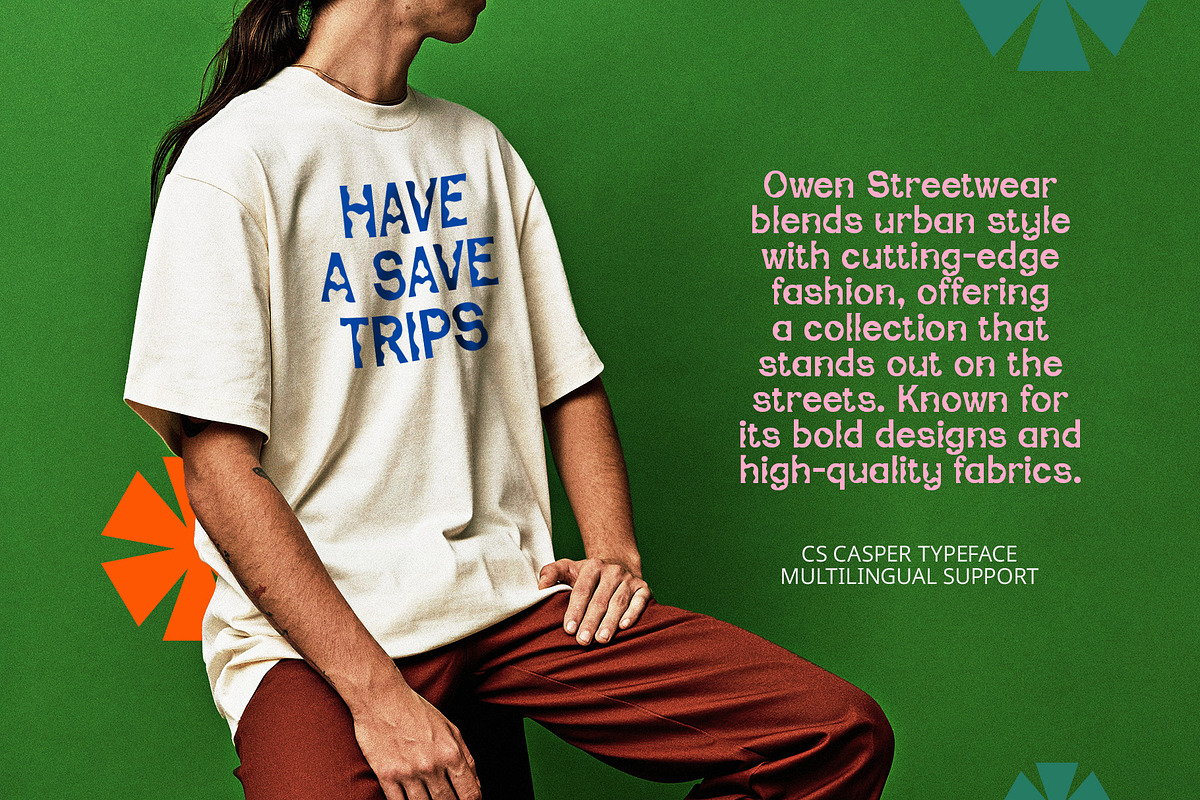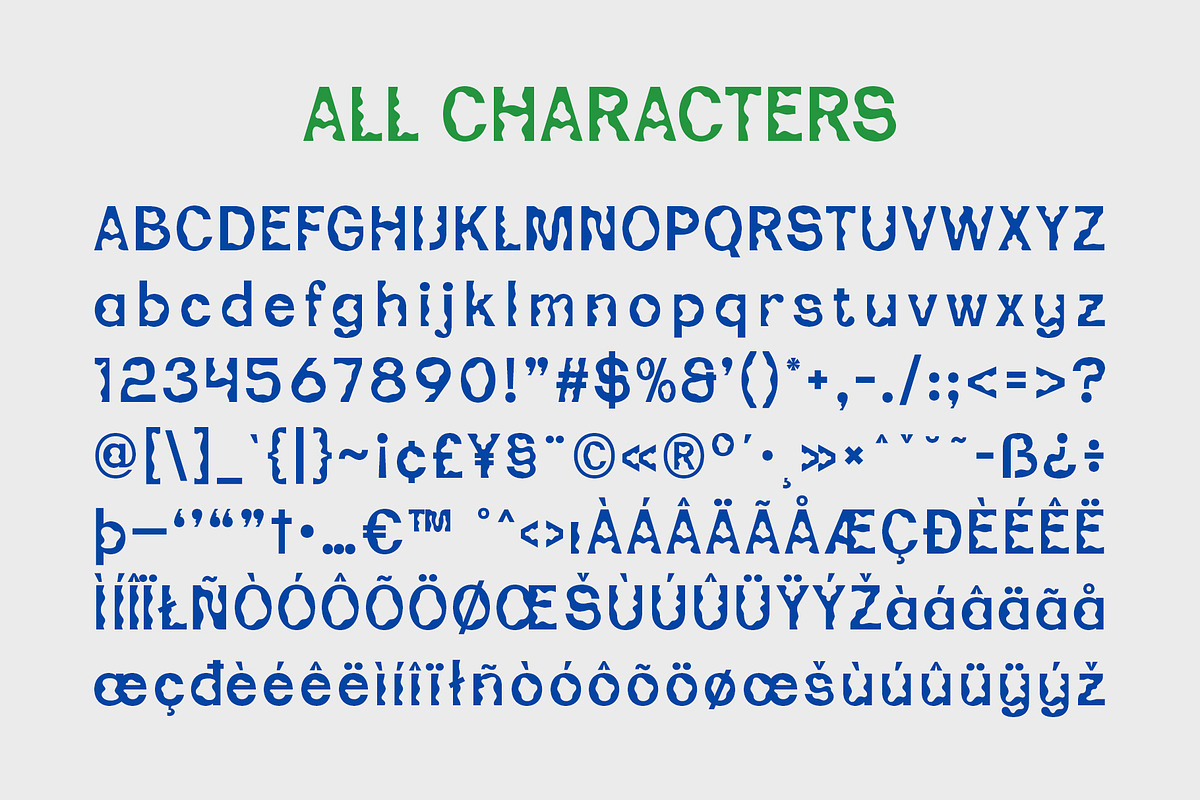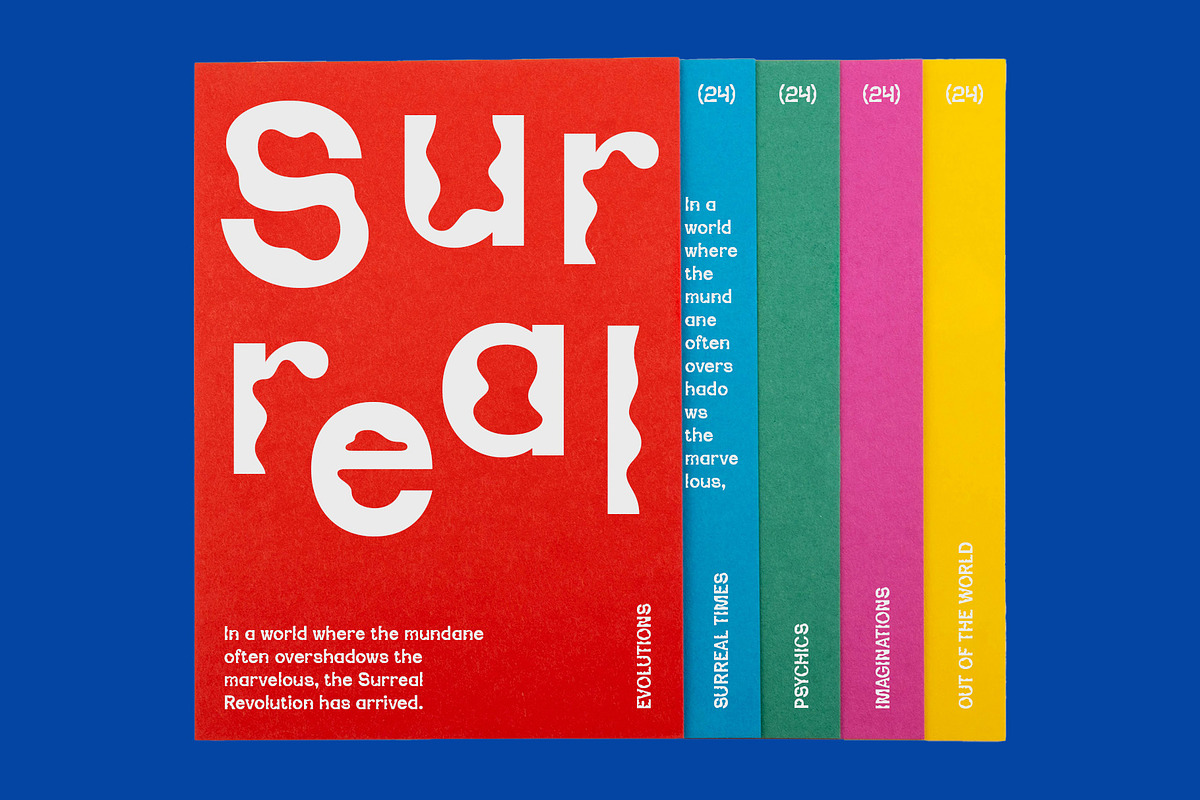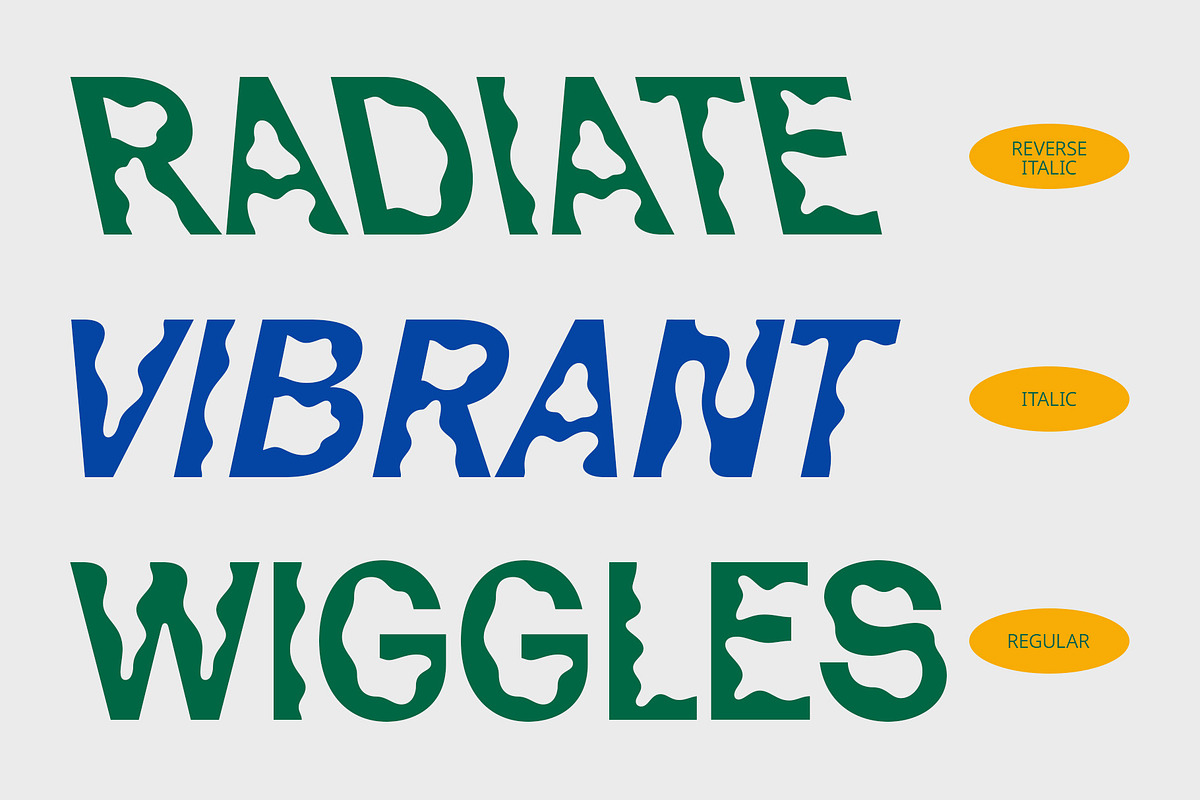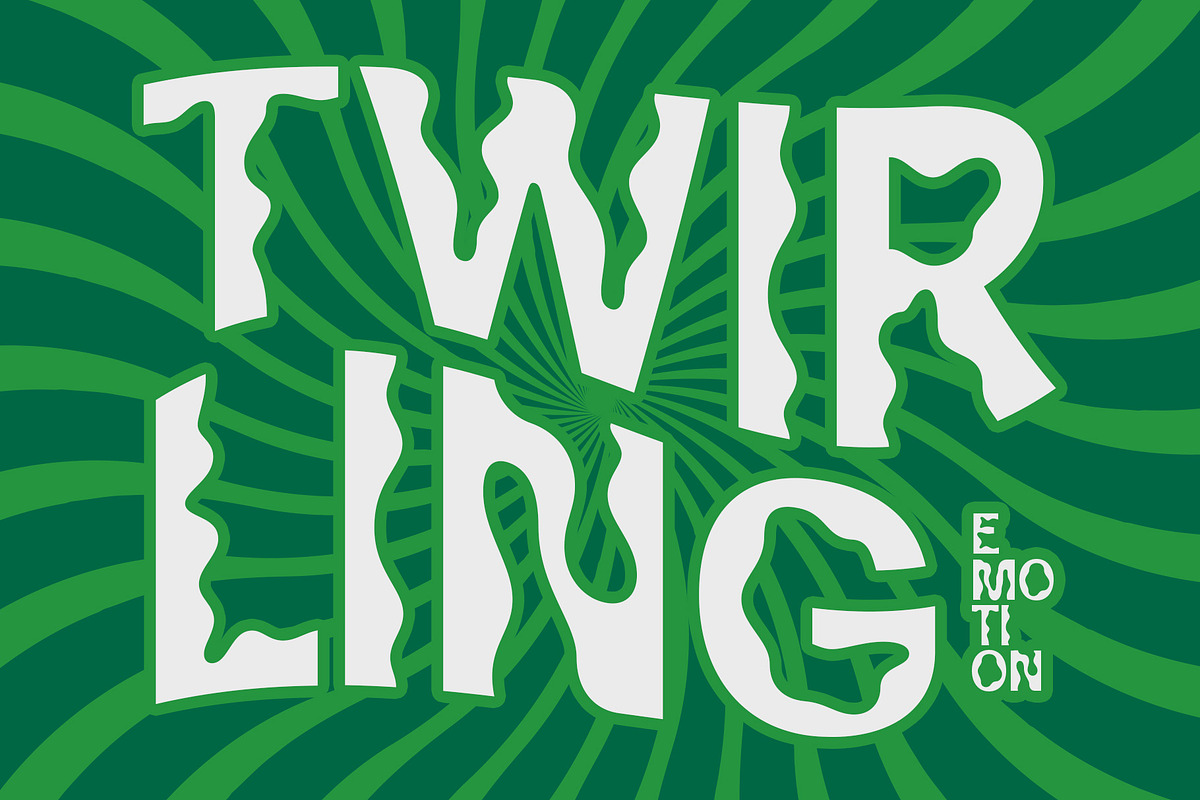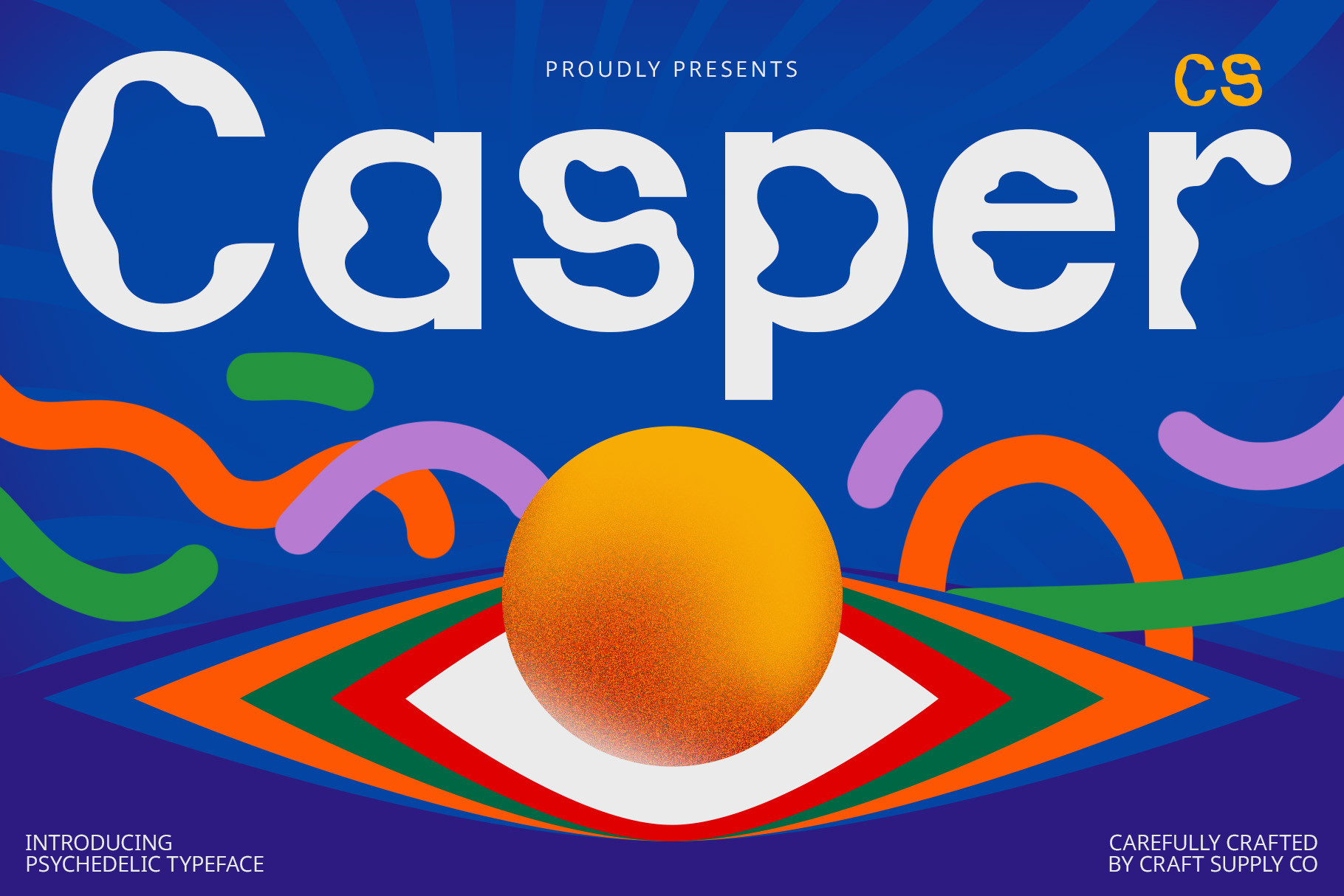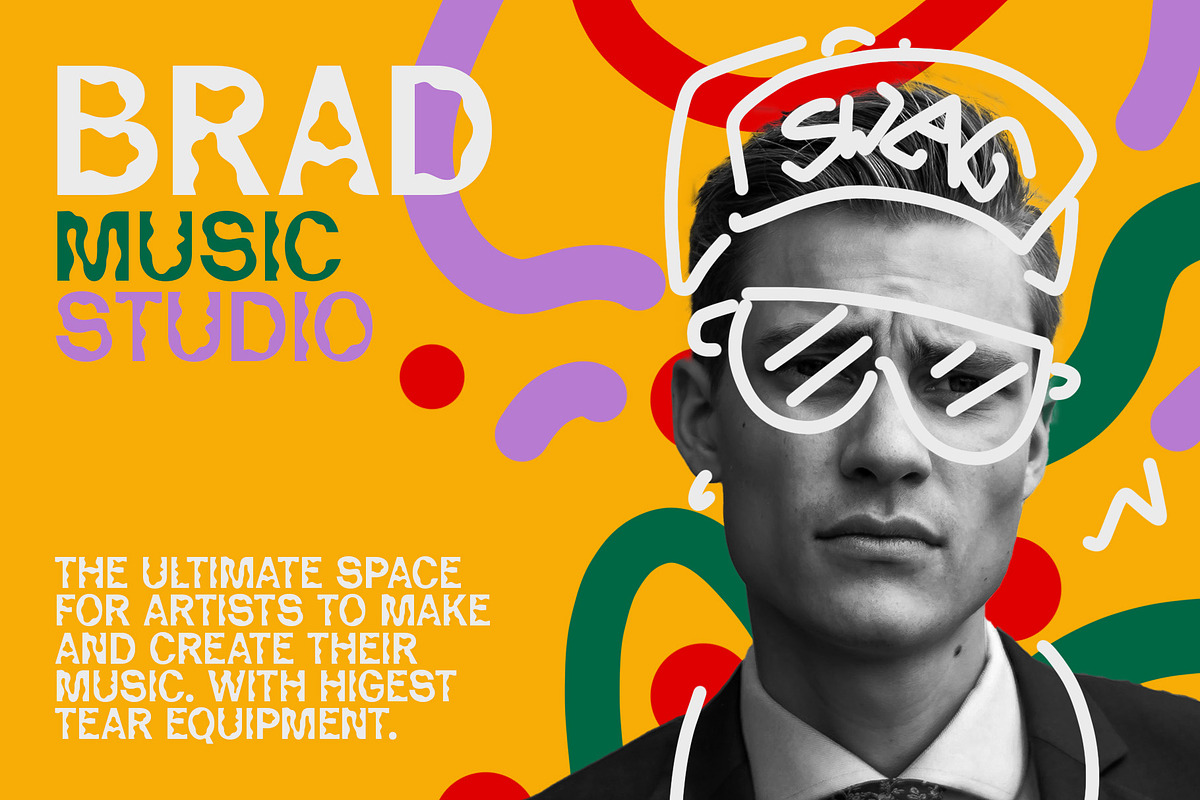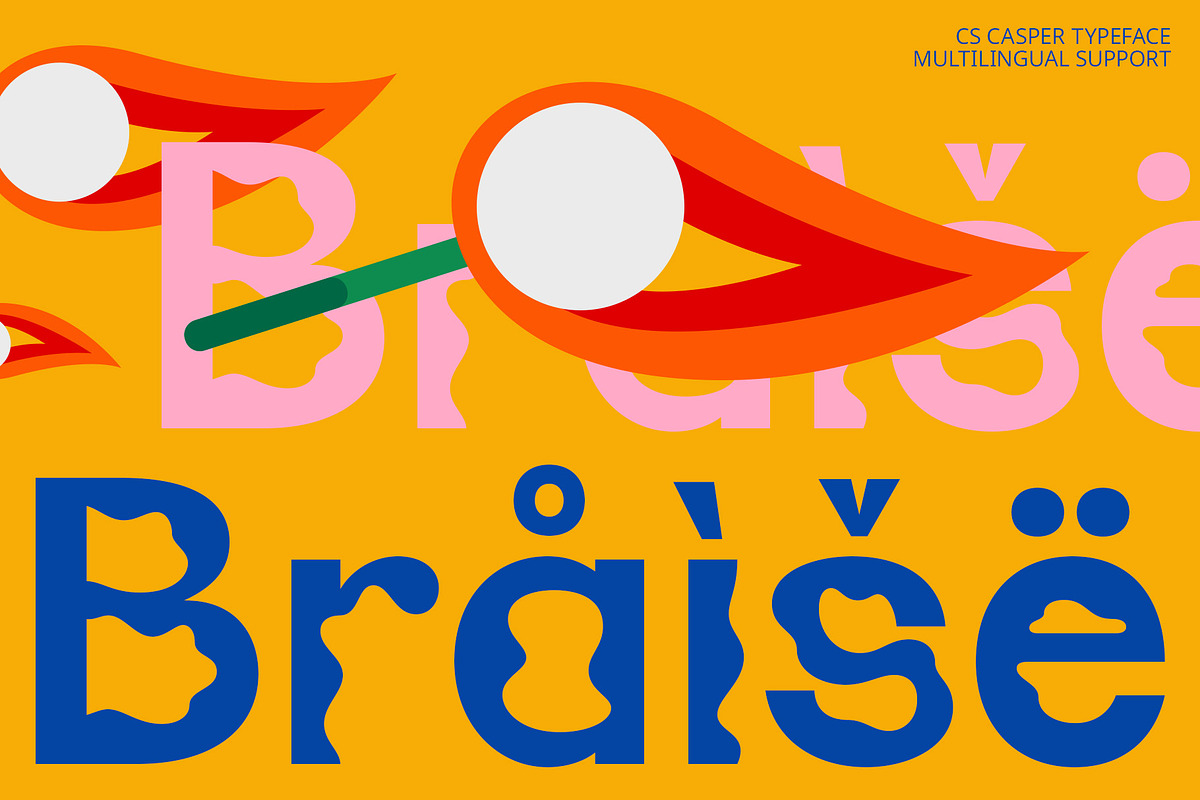
CS Casper – Psychedelic Font
CS Casper – Psychedelic Font: Vibrant Creativity with a Funky Twist
Display Sans-Serif with Psychedelic Flair CS Casper is a display sans-serif font that embraces a psychedelic style, characterized by its imaginative and unconventional design elements. The font features letters with distorted shapes and dynamic patterns, resulting in a visually striking and vibrant effect that captures attention.
Unusual and Imaginative Design Elements The psychedelic influence in CS Casper creates a funky and energetic look, perfect for conveying a sense of creativity and excitement. Its unique design elements and dynamic forms make it an ideal choice for projects that aim to stand out and evoke a playful, artistic vibe.
Perfect for Music Events and Experimental Graphics Whether you’re designing music event posters, experimental graphics, or merchandise, CS Casper brings a creative and lively touch to your projects. Its vibrant and unconventional style adds a distinctive flair, making it well-suited for applications that need to make a bold and memorable impression.
Versatile for Energetic and Artistic Projects From event promotion to unique graphic designs, CS Casper provides a versatile solution for adding a psychedelic edge. Its combination of distorted shapes and vibrant patterns ensures that your projects will have a distinctive and energetic look, capturing the essence of creative and psychedelic artistry.
- CS Casper Regular
- CS Casper Italic
- CS Casper Reverse Italic